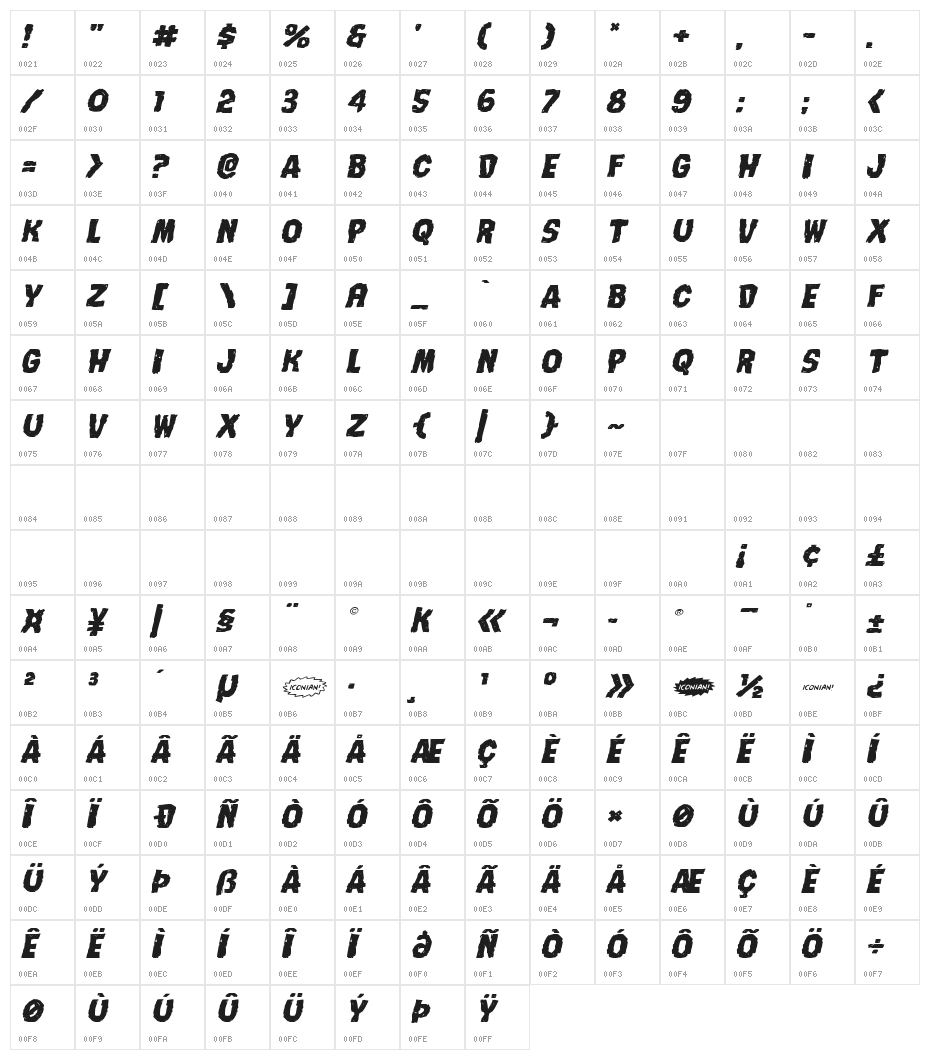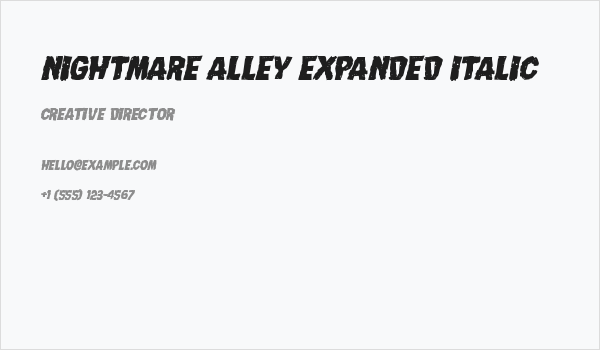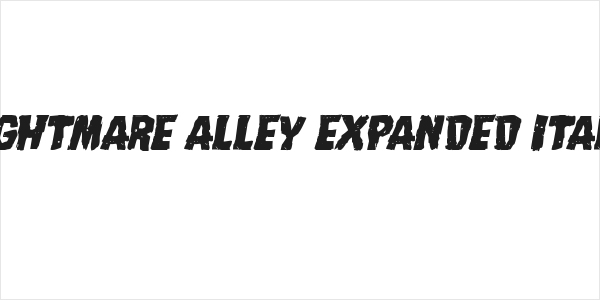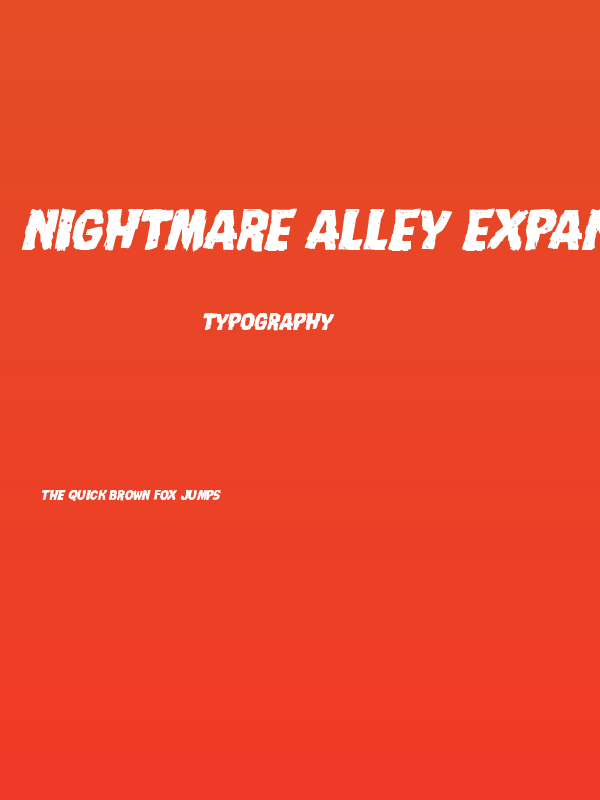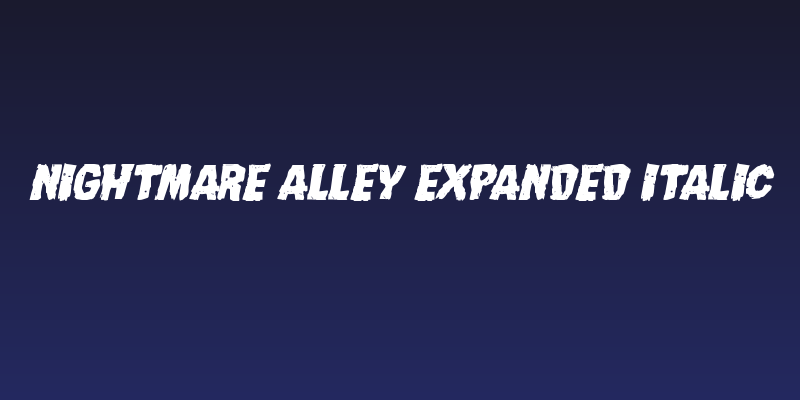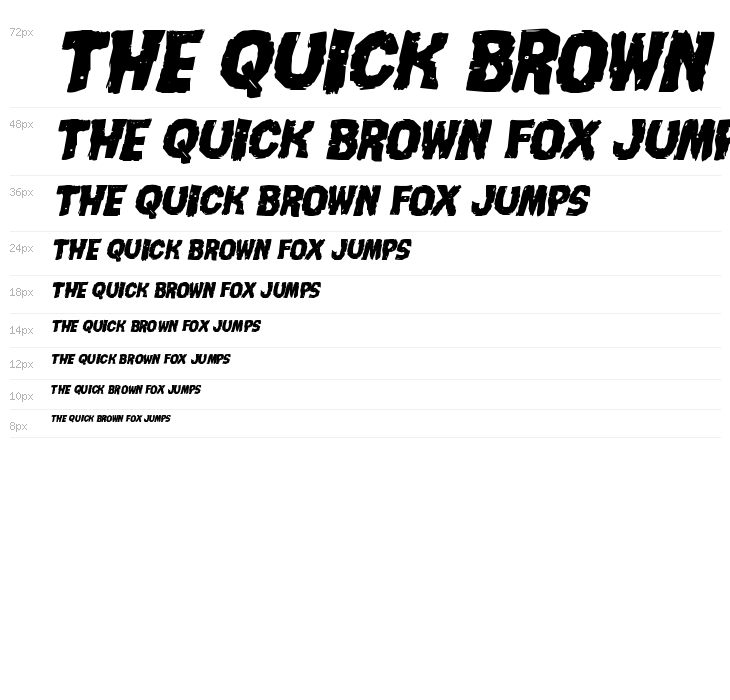
Nightmare Alley Expanded Italic Font
Nightmare Alley Expanded Italic Description
This font exhibits a bold and dynamic style with a distressed, grunge-like appearance. The characters are heavily textured, giving them a rugged and edgy feel. The expanded width and italic slant add to its dramatic and impactful presence, making it ideal for attention-grabbing designs. The uppercase and lowercase letters maintain a consistent style, with numbers and special characters following suit. Its unique and artistic flair makes it suitable for creative projects that require a strong visual statement.
| Proposed Projects | Ideal for posters, album covers, video game graphics, and edgy branding projects. |